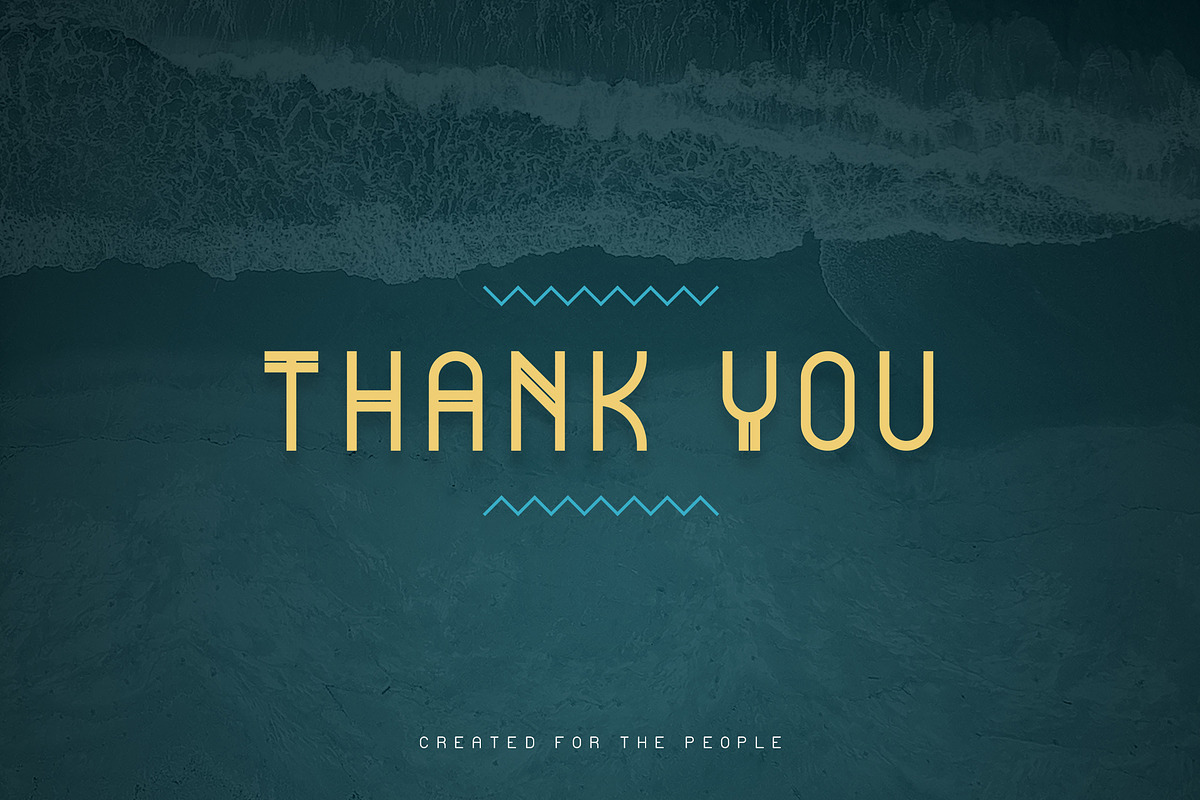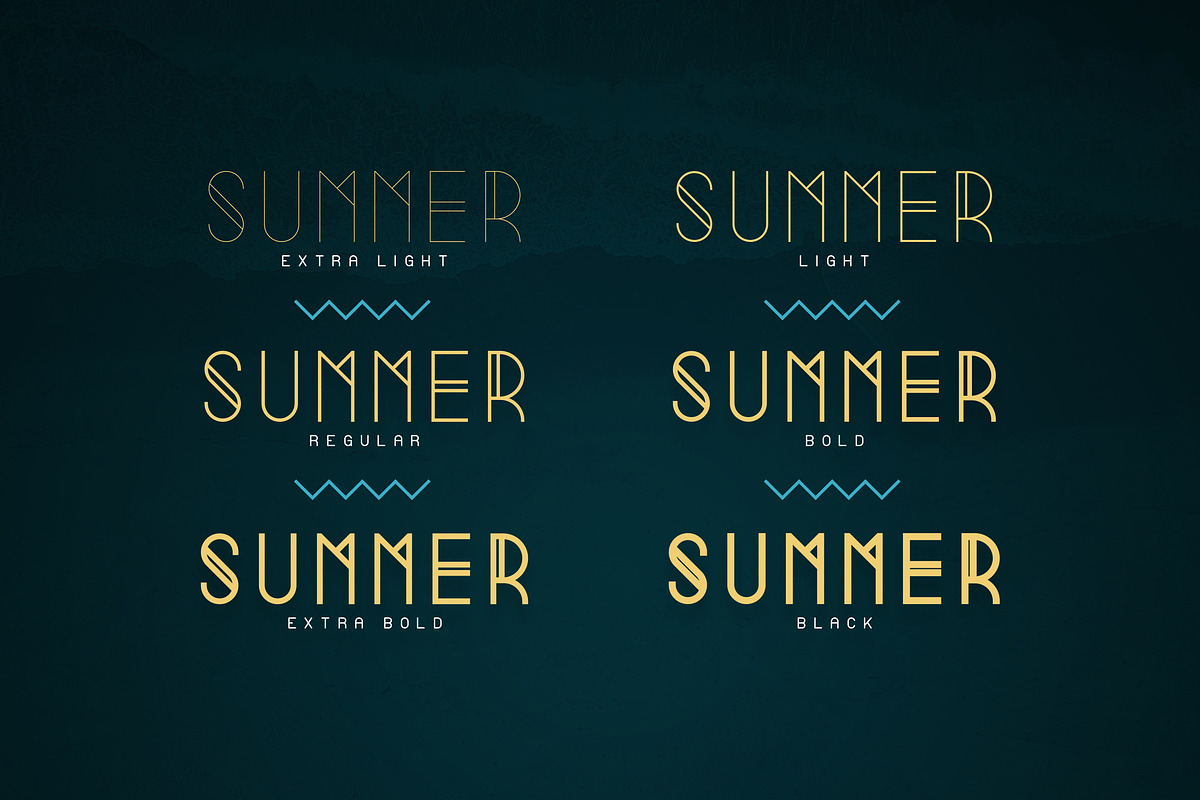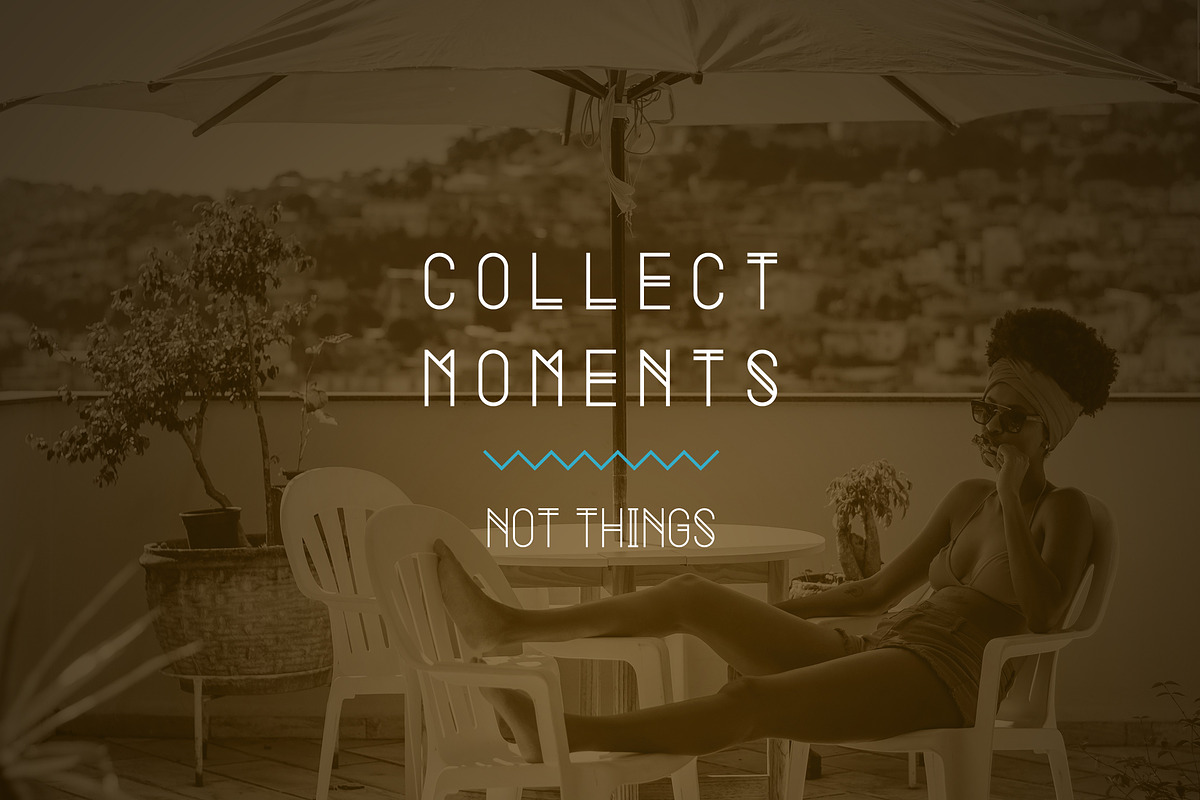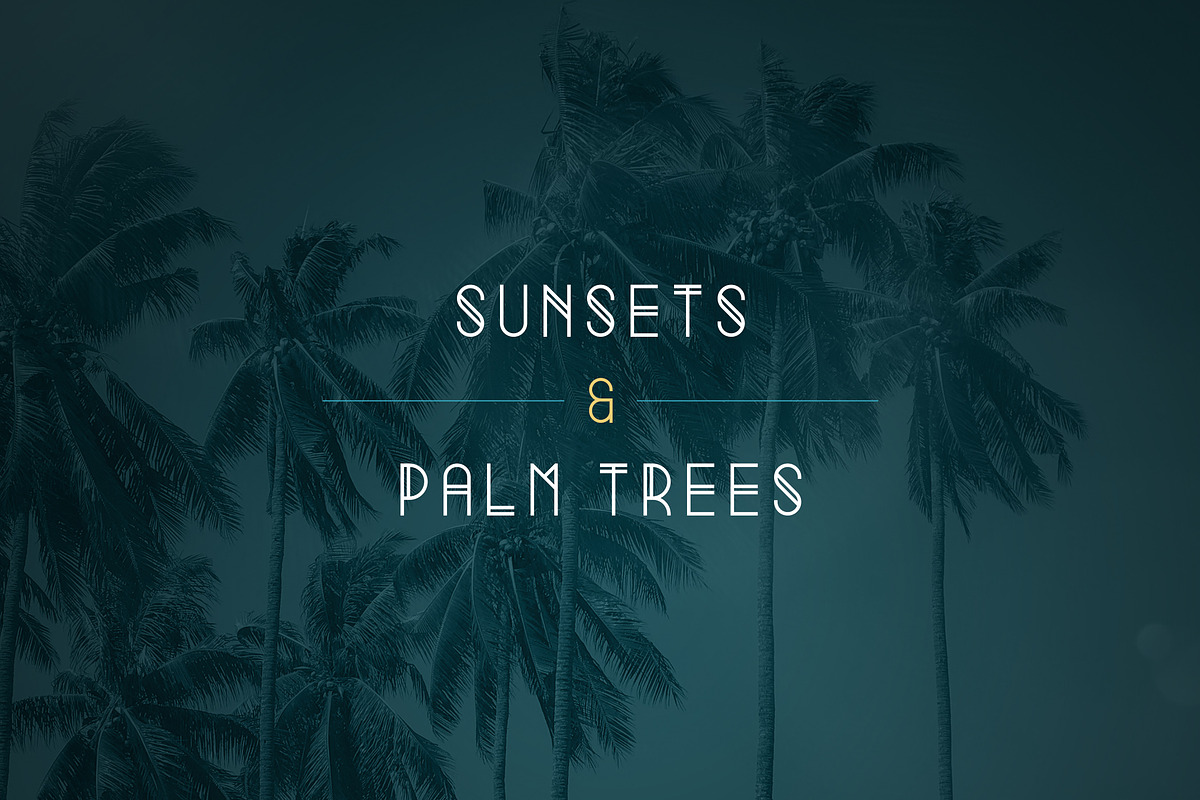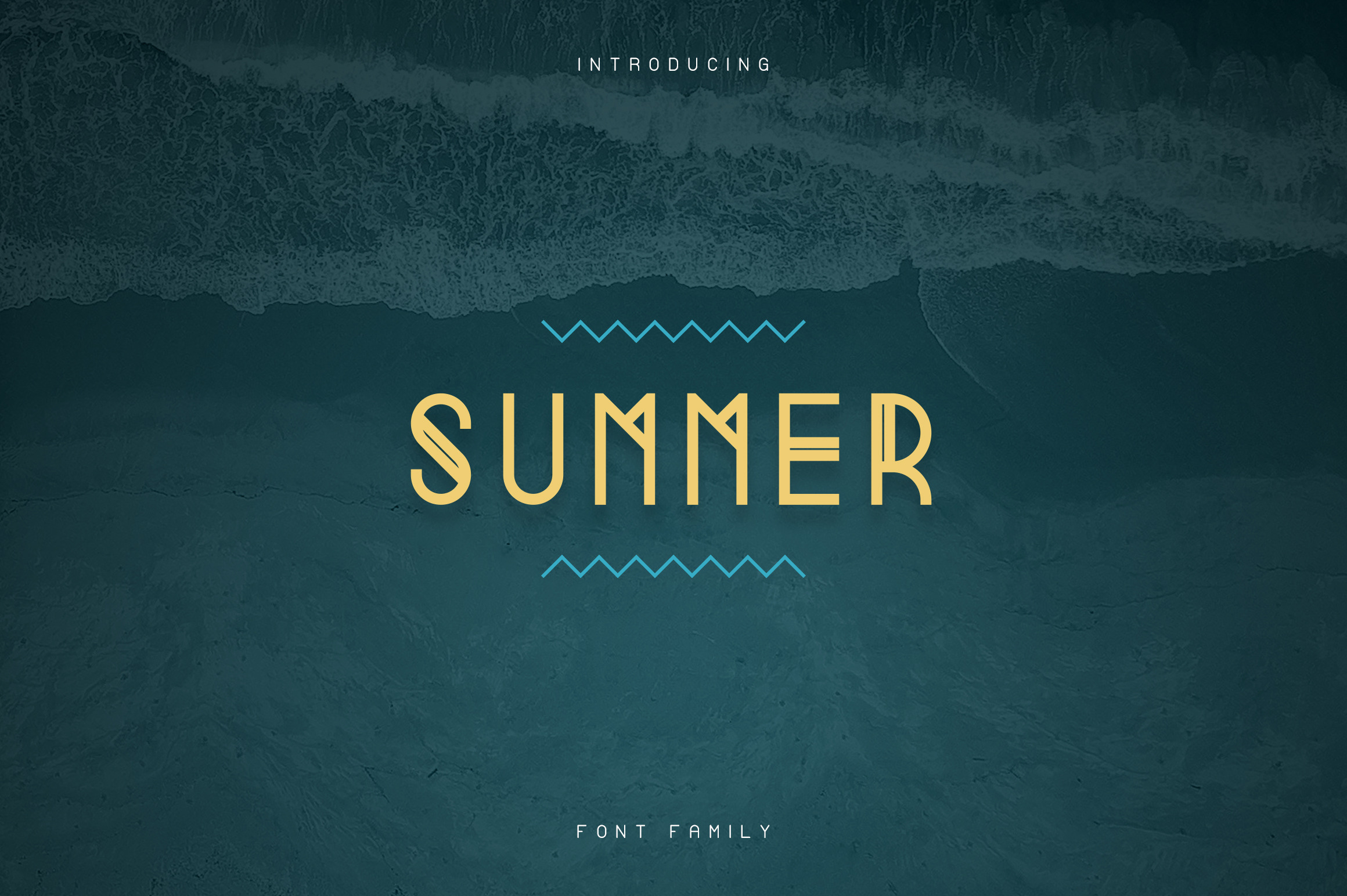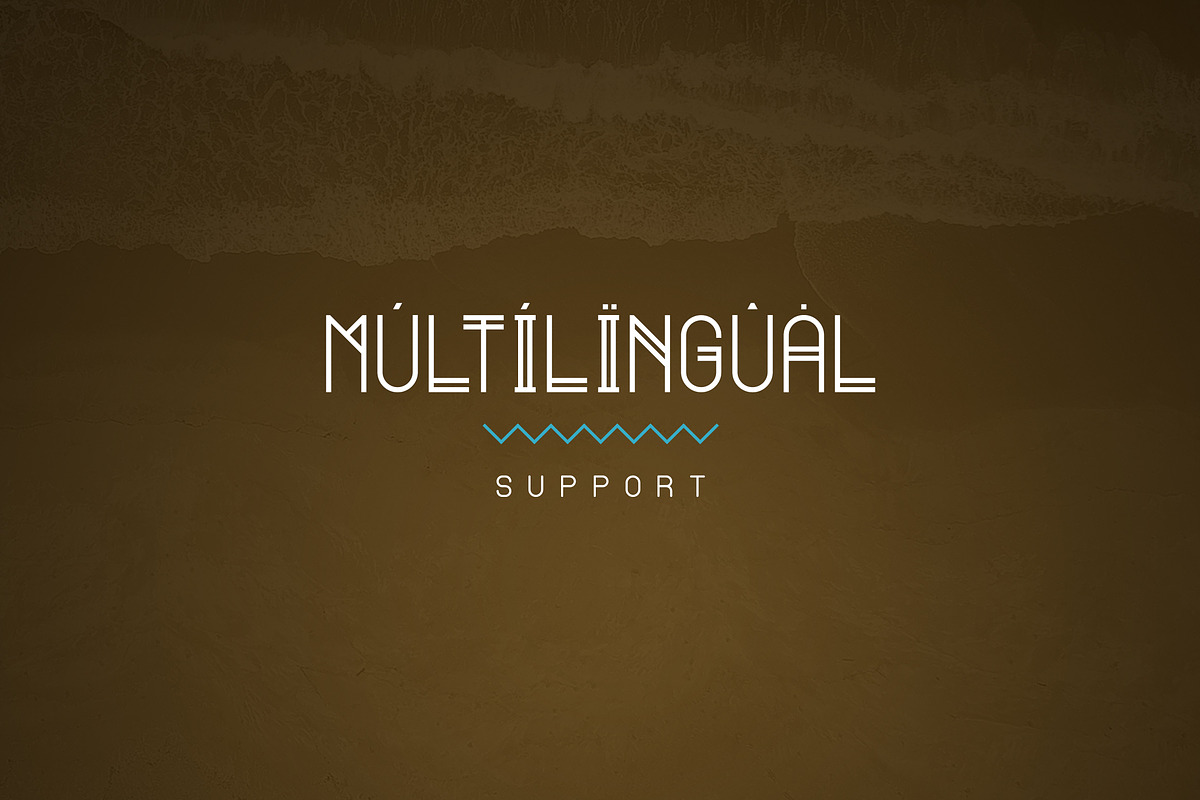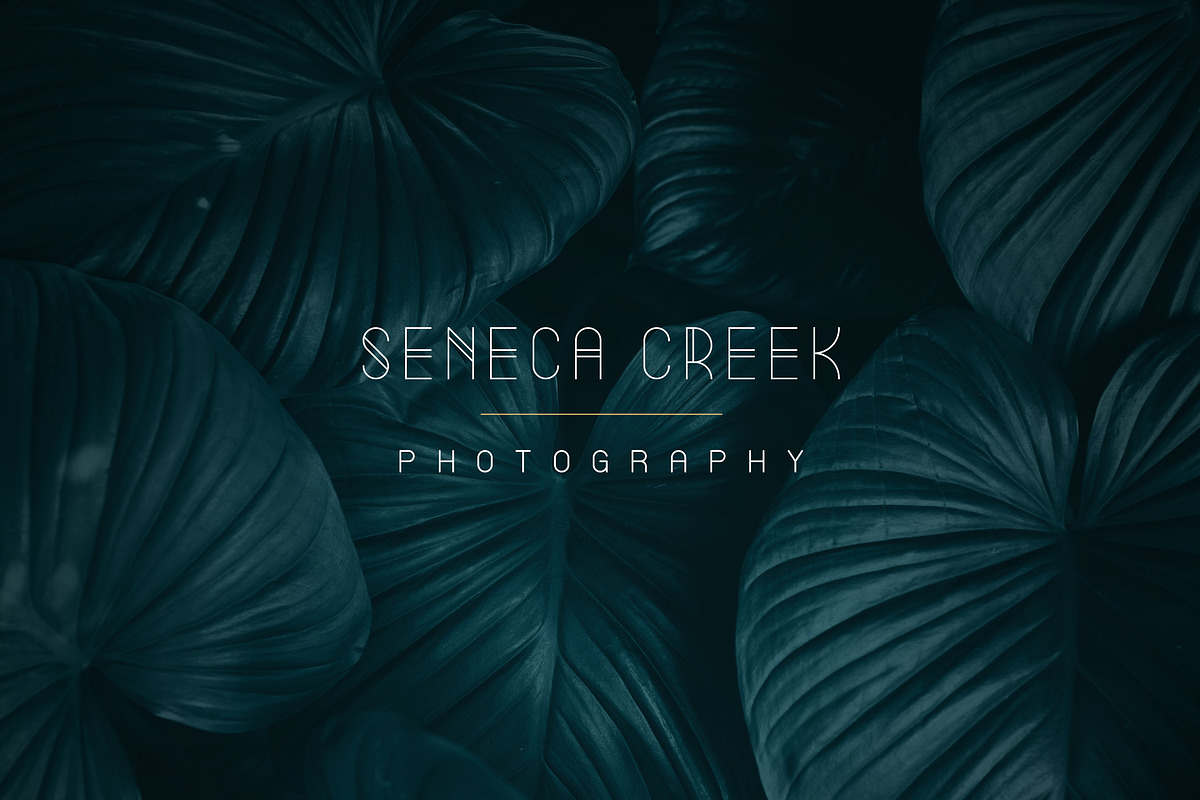
Summer is clean, fun typeface with 6 fonts and multilingual support. It's a very versatile font that works great in large and small sizes.
Summer is perfect for branding projects, home-ware designs, product packaging, magazine headers - or simply as a stylish text overlay to any background image.
- Uppercase,numeral,punctuation & Symbol
- Extra Light
- Light
- Bold
- Extra Bold
- Black